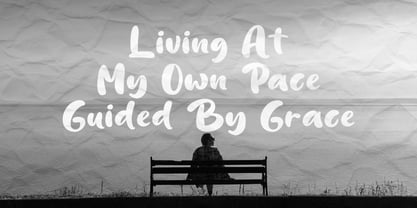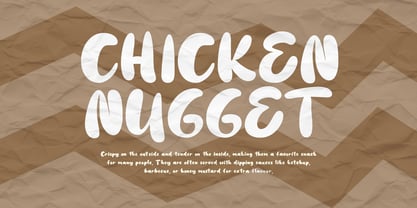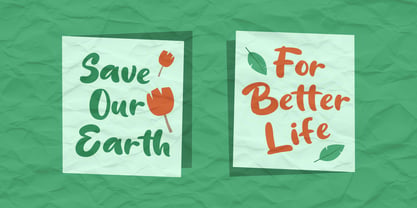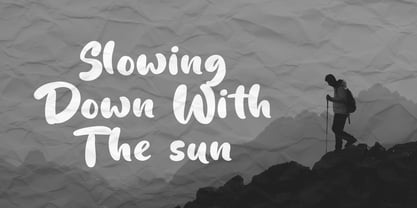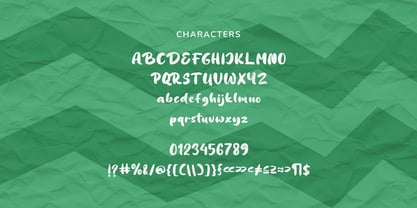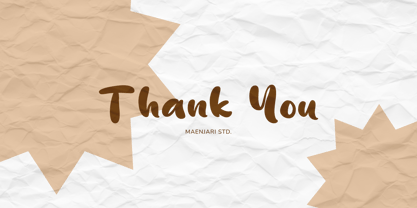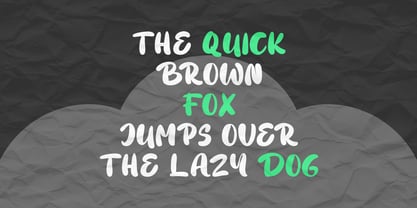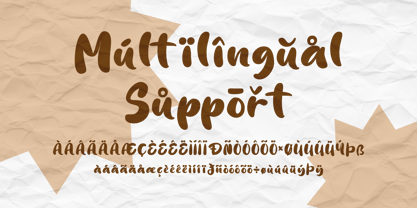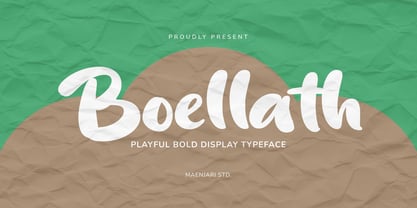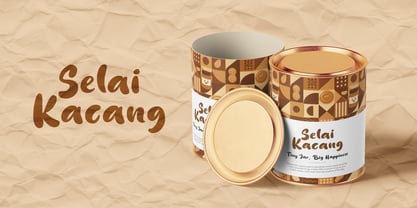
Boellath
by Maenjari Std
The Boellath Font Family was designed by Maenjari and published by Maenjari Std. Boellath contains 1 styles. More about this family
Boellath is a bold handwritten display font designed to infuse energy, confidence, and personality into your projects. Featuring smooth brush-inspired strokes and expressive curves, this typeface offers a natural handcrafted feel while ensuring strong readability and visual impact. Ideal for eye-catching headlines and creative branding, Boellath excels in logos, packaging, apparel design, posters, social media content, quotes, product labels, café branding, invitations, and modern advertising initiatives. Its playful yet bold character makes it particularly suitable for brands aiming to convey a friendly, stylish, and authentic image. What sets Boellath apart is its unique blend of thick, flowing letterforms and casual handwritten movement, giving each word a lively and artistic flair. Whether utilized in large titles or short display text, Boellath instantly adds warmth and creativity to your typography. This font pairs beautifully with minimalist sans serifs, elegant scripts, or clean modern fonts, enabling designers to craft balanced and contemporary layouts. The typeface includes a complete set of uppercase and lowercase letters, numerals, punctuation, and multilingual support, providing wider creative flexibility. Inspired by modern brush lettering and expressive signature styles, Boellath is crafted for creators seeking typography that feels personal, bold, and memorable. From branding projects to digital content and merchandise design, this font ensures your work stands out with a handcrafted and artistic touch.